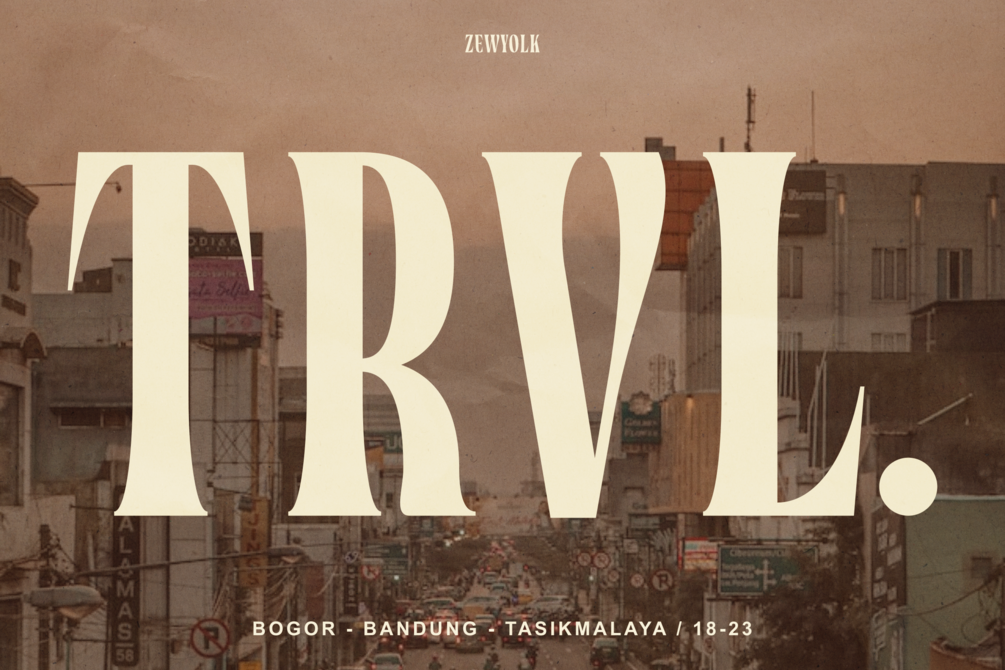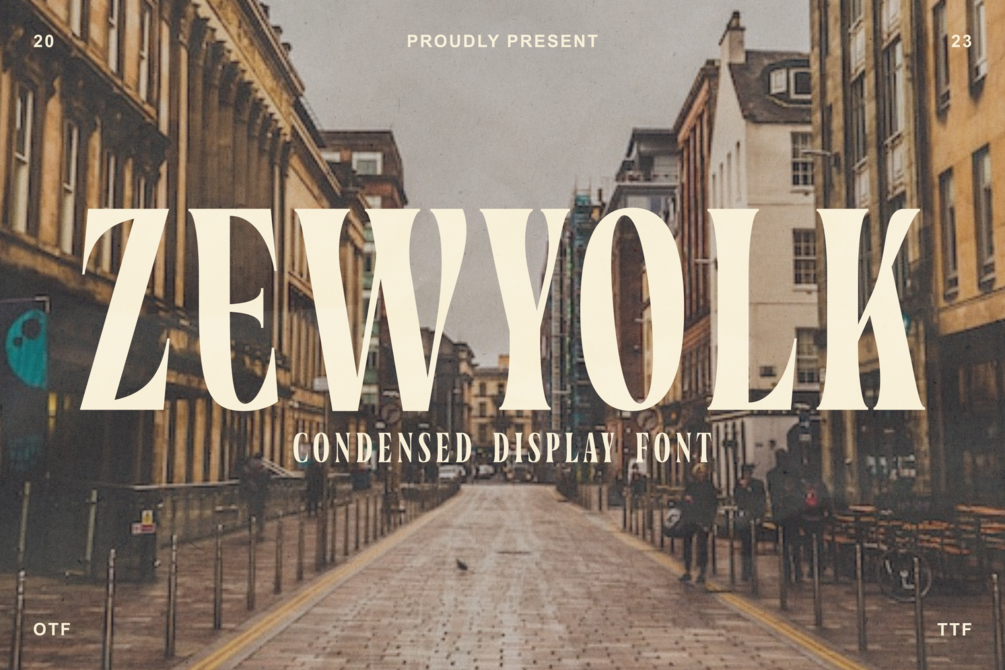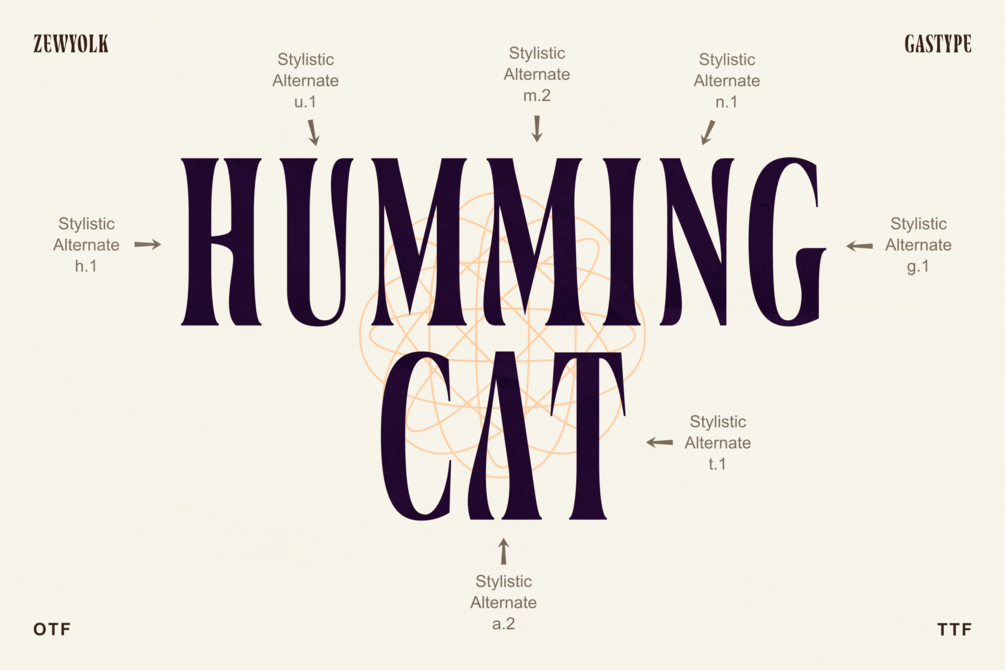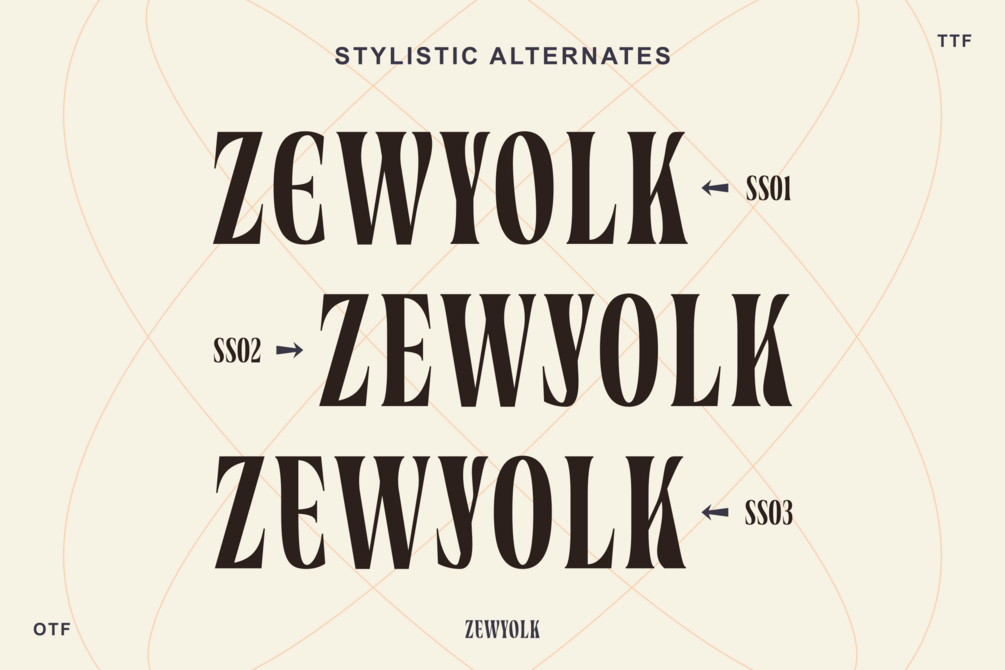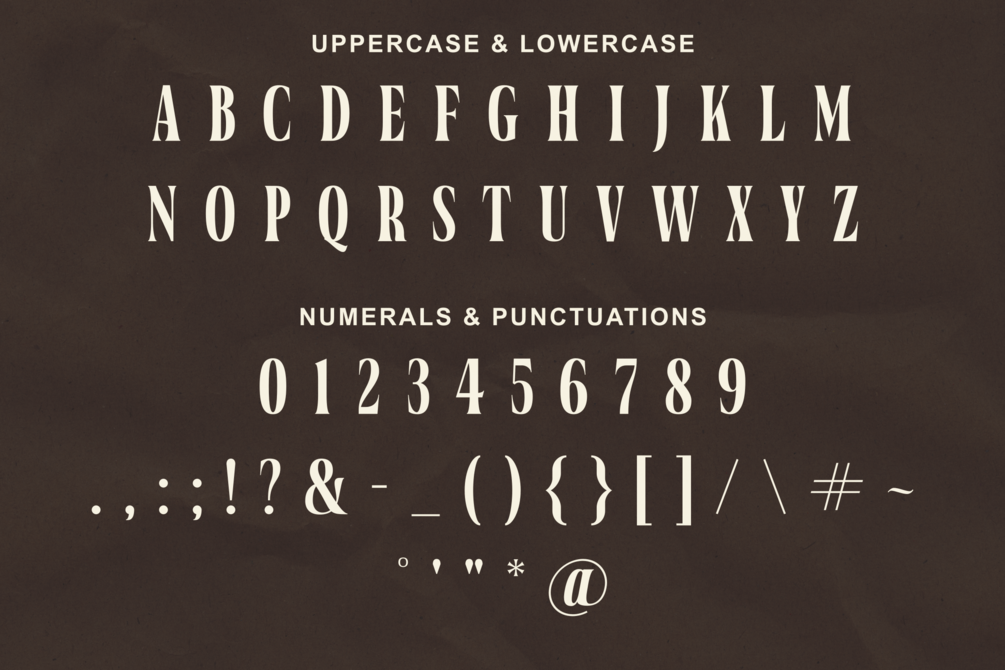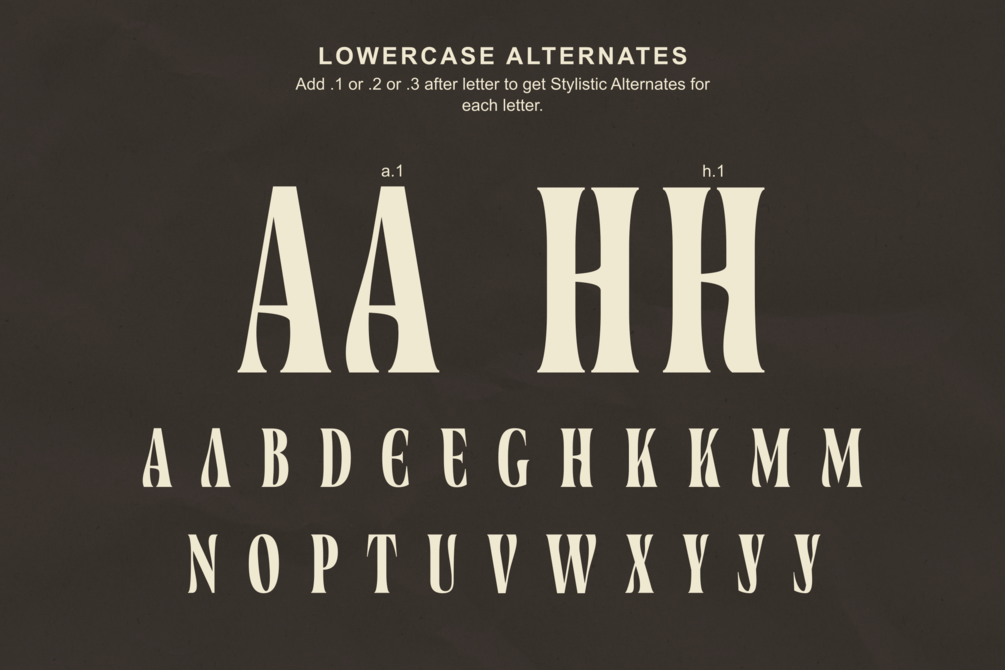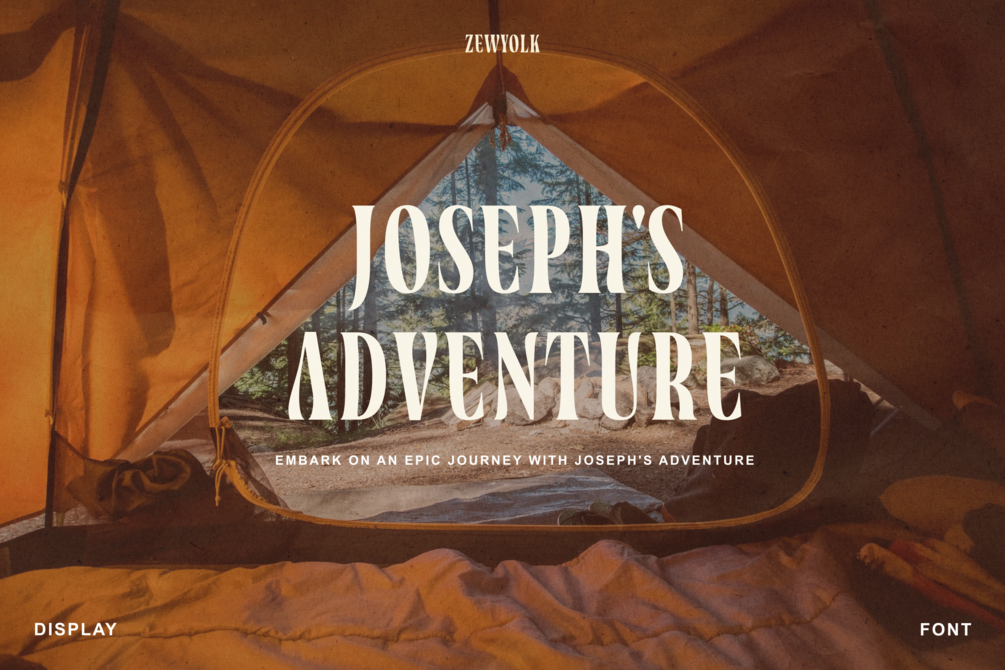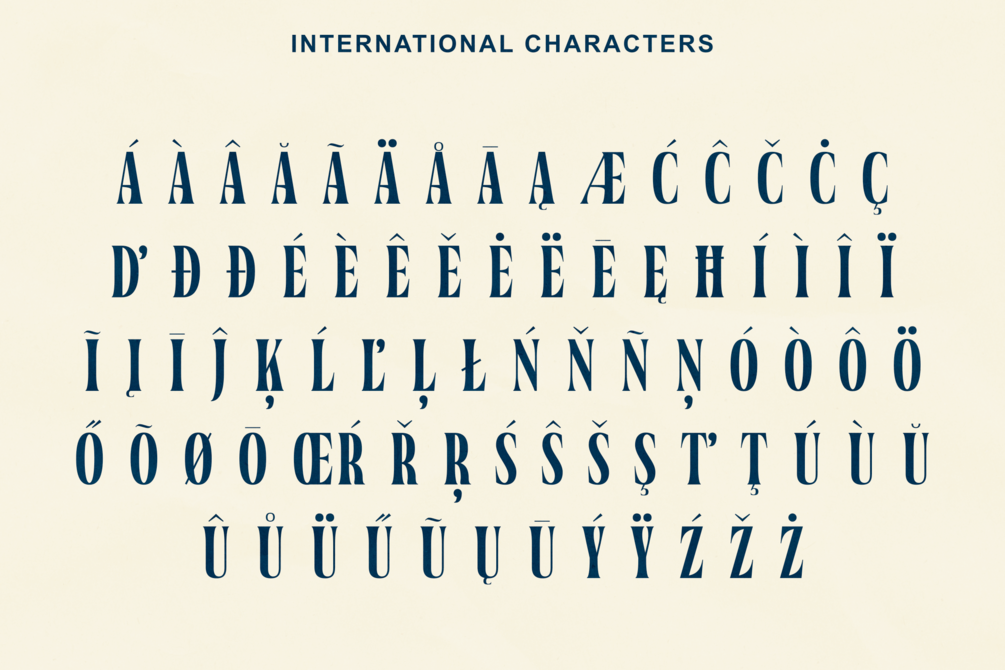
Zewyolk - Bold Condensed Display
Zewyolk is a refined and elegant condensed display font that is perfect for creating sleek and sophisticated designs. Its clean and minimalist letters feature a tall and narrow design, giving it a modern and stylish personality. This font is ideal for logos, headlines, and other projects that require a refined and professional font. The font’s condensed style is sure to create a bold and impactful look.